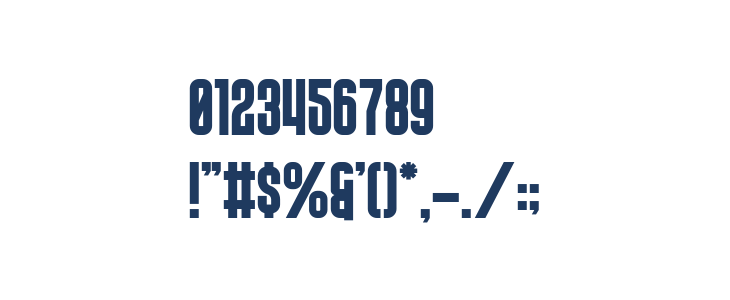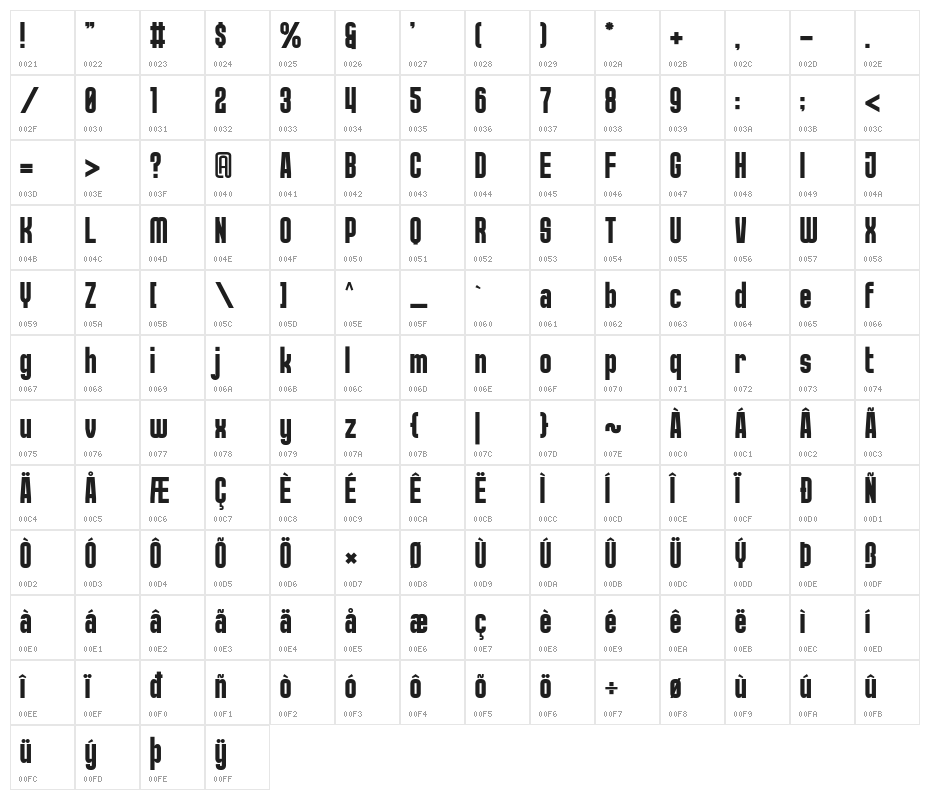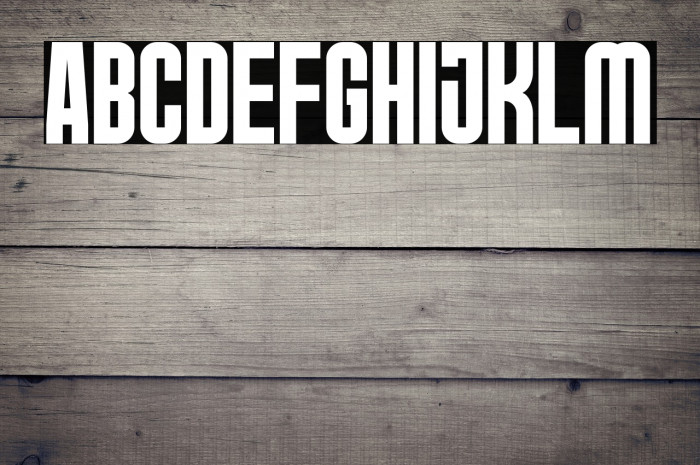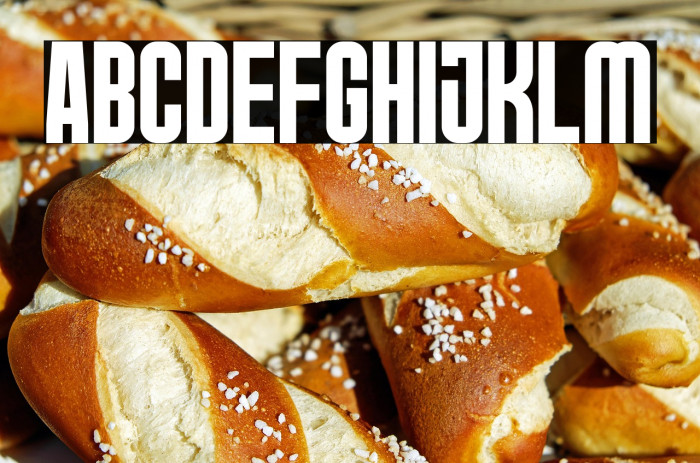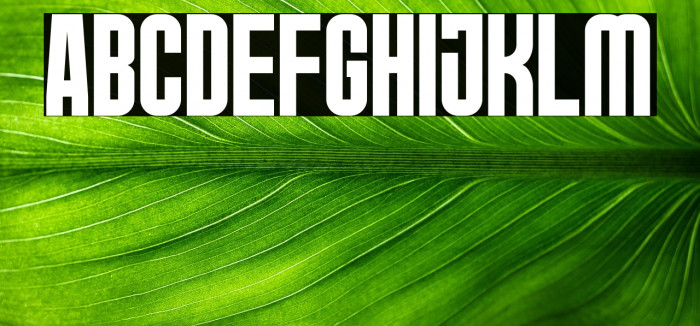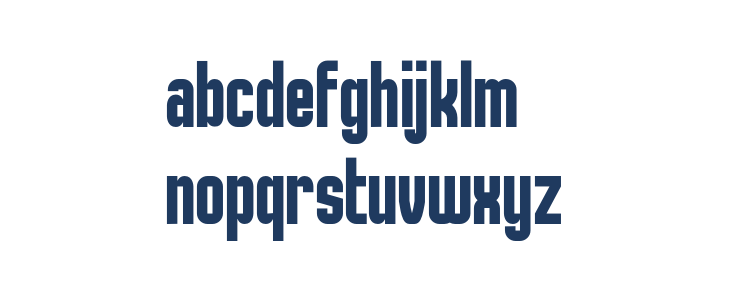
GRNORCH Font
GRNORCH Description
This font features a bold and impactful design with a strong geometric structure. The uppercase letters are tall and narrow, giving a condensed appearance, while the lowercase letters maintain a similar style with slightly more rounded edges. The numbers are consistent with the overall boldness, ensuring readability and uniformity. Special characters are designed to match the assertive style, making them suitable for attention-grabbing text. The font's thick strokes and minimal contrast between thick and thin lines contribute to its modern and assertive look.